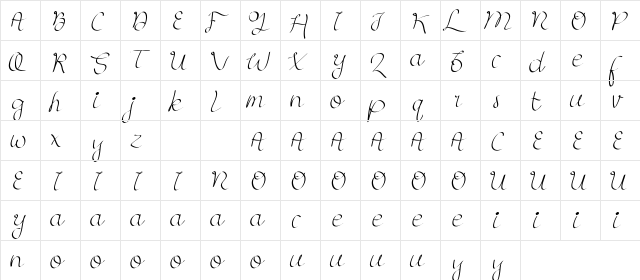
Dynamice Demo Script Regular
Design Context for Dynamice Demo Script Typeface
Dynamice Demo Script brings a calligraphic fluidity to the page — its connecting strokes and expressive curves give it an unmistakably human quality.
Font Pairing: Combine Dynamice Demo Script with a simple geometric sans for maximum contrast — the tension between flowing curves and clean structure is a classic typographic pairing.
Pro Tip: Use Dynamice Demo Script for short runs of text — names, titles, or taglines. Extended body copy in script faces tires the eye quickly.